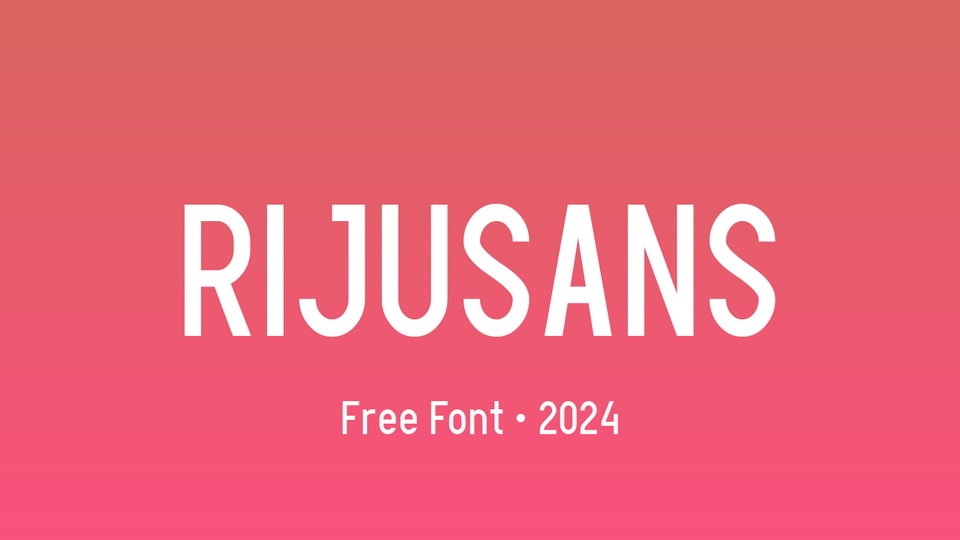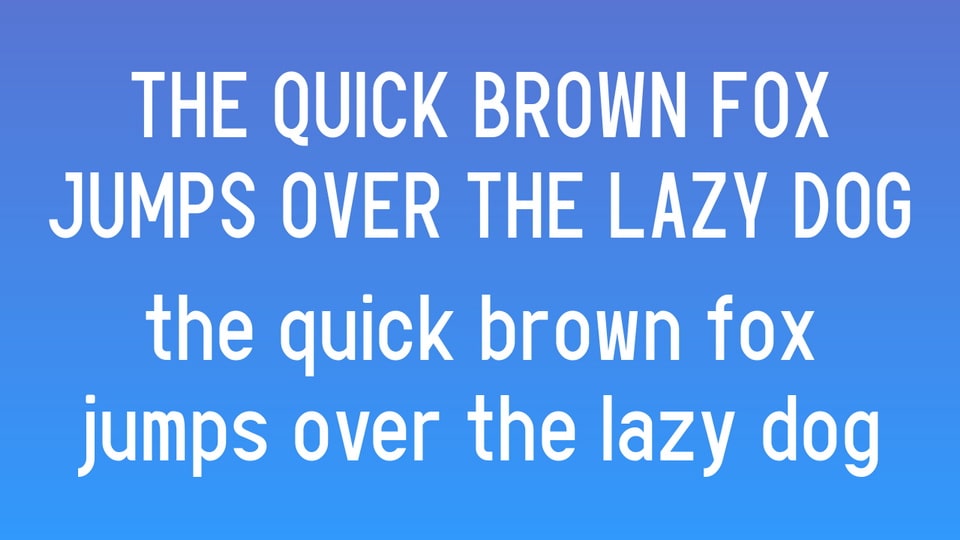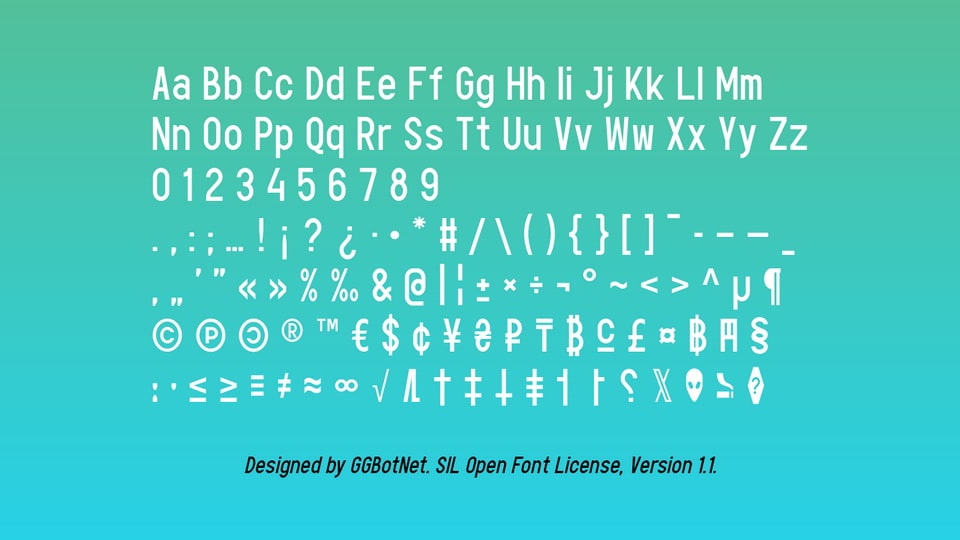
Rijusans is a sleek, condensed geometric sans-serif typeface designed for maximum impact in minimal space. With its clean lines, precise shapes, and streamlined proportions, this font is perfect for modern, space-conscious designs. Its condensed style enhances readability while maintaining a bold and contemporary aesthetic.
Ideal for branding, editorial headlines, posters, and digital interfaces, Rijusans font delivers a professional yet approachable look. Its geometric construction ensures clarity and structure, making it a versatile choice for both print and screen.
Use Rijusans font to bring elegance and efficiency to your designs with its condensed and modern flair.